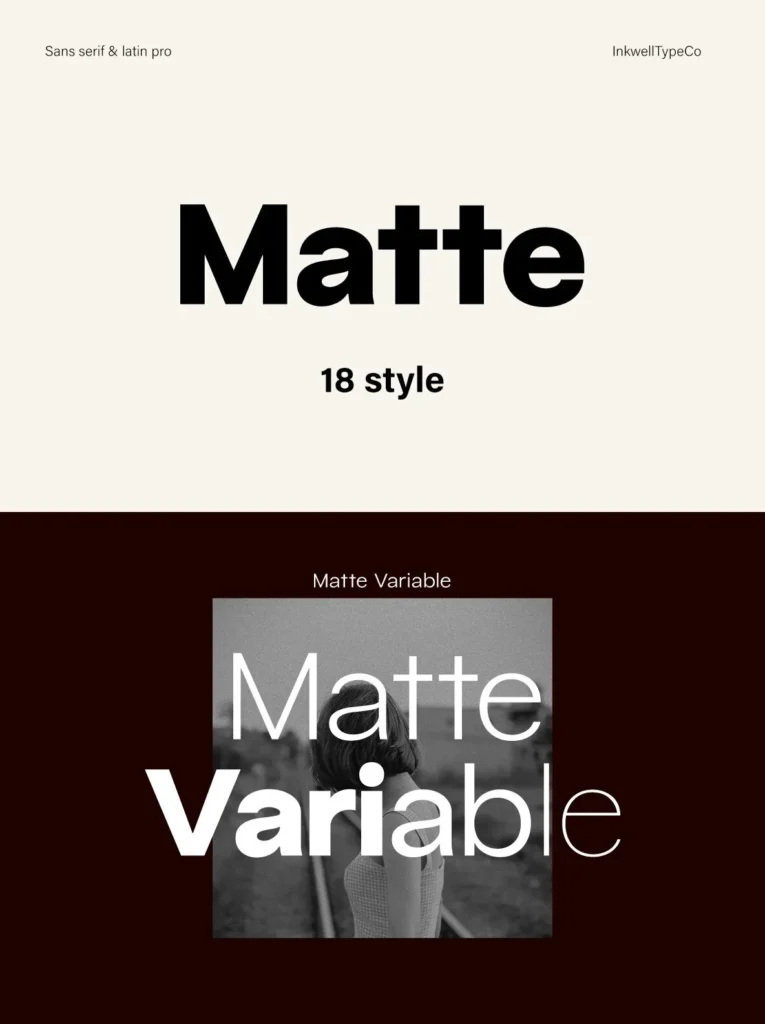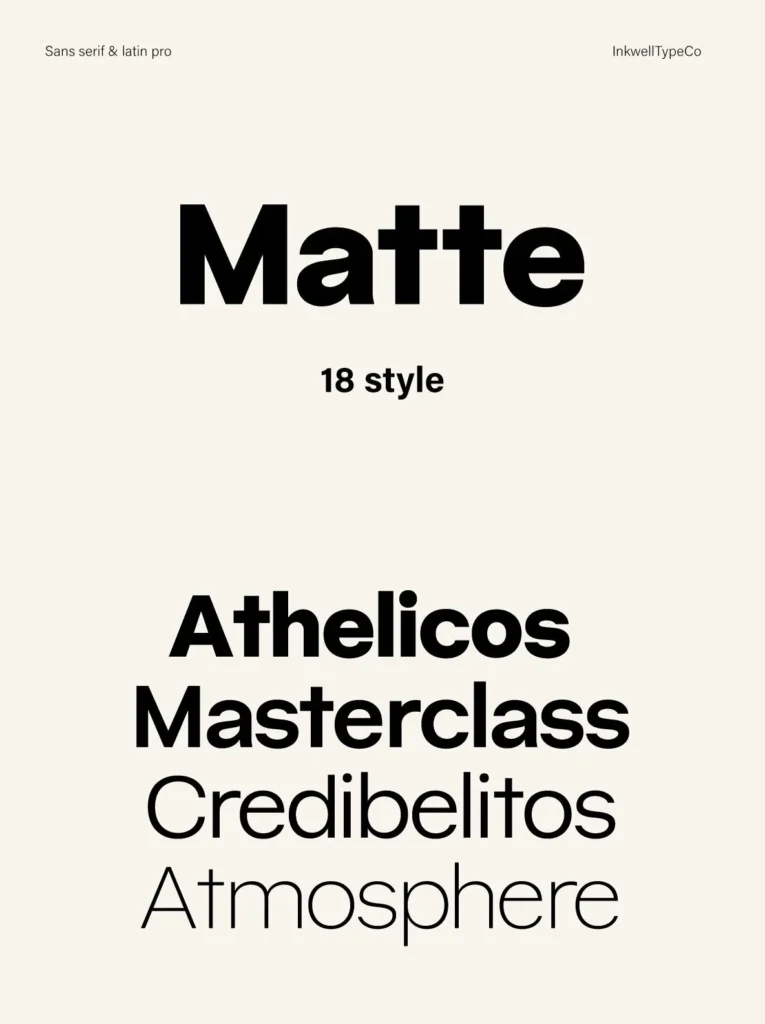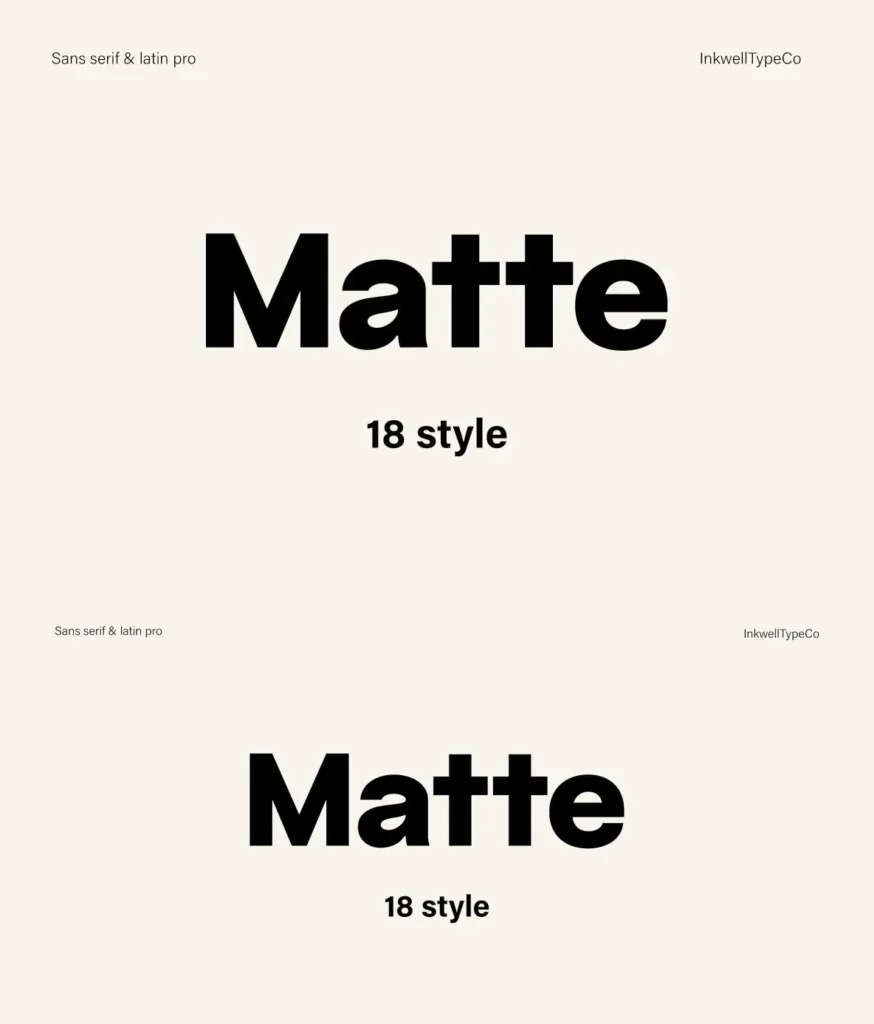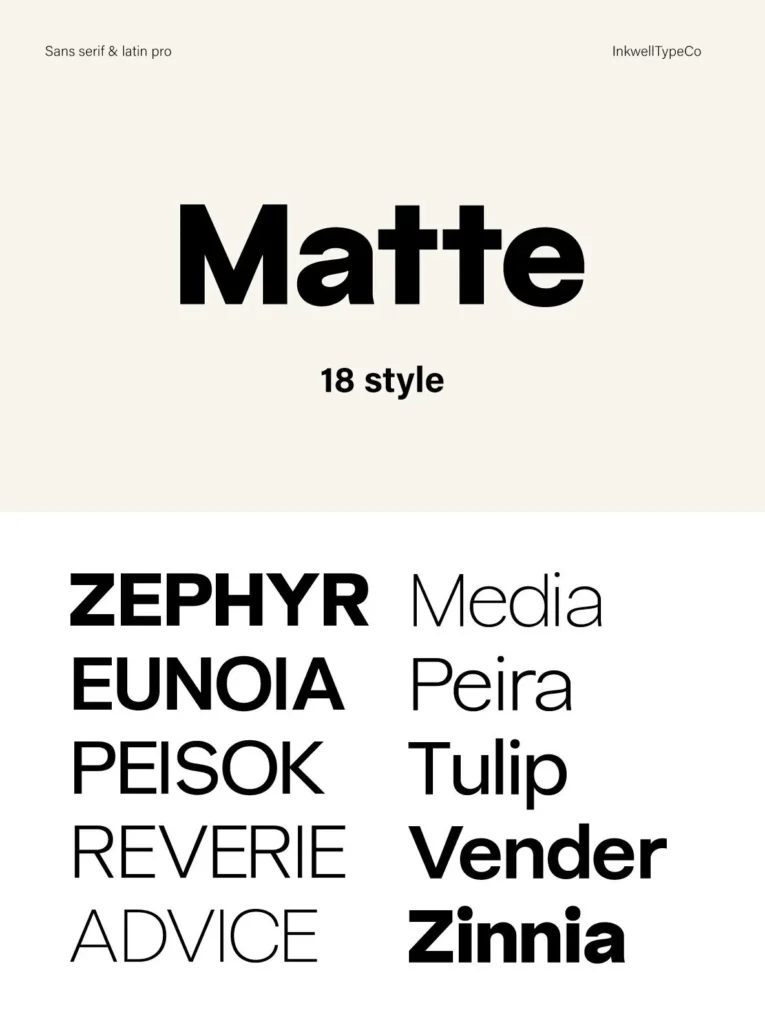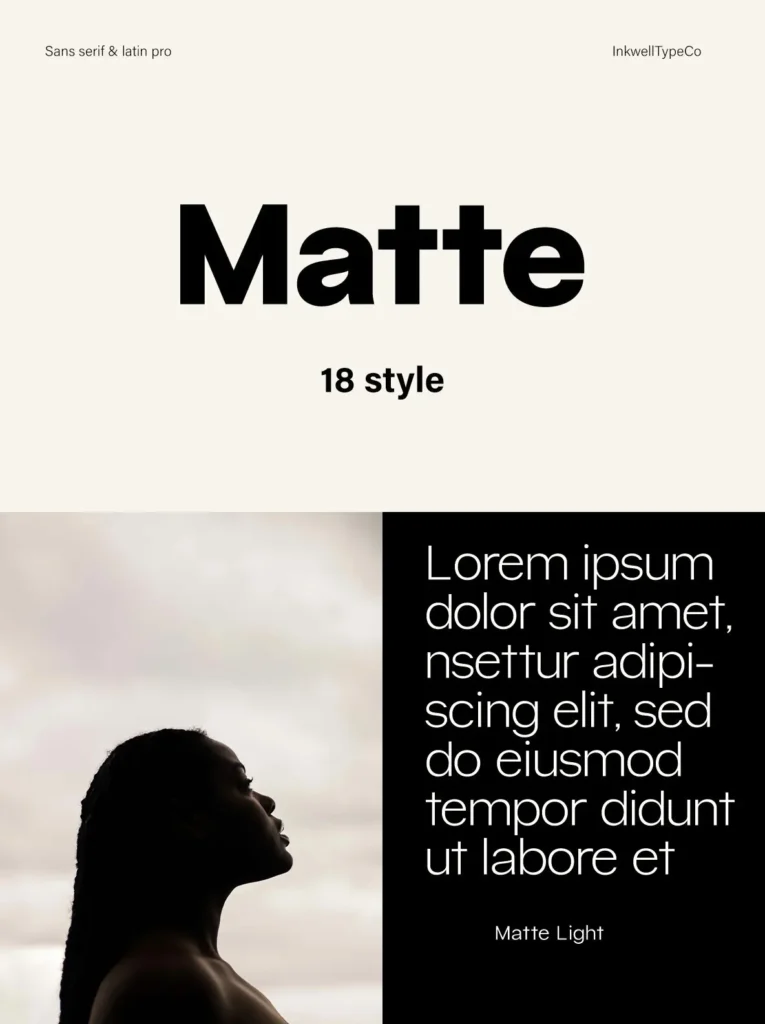
Matte: Bold clarity for modern layouts
A modern font family that blends boldness with clean design, Matte reads with clarity and precision. Its forms feel direct and confident, making it a strong fit for brand identities, editorial work, packaging, and digital design where readability still matters.
The family includes both uppercase and lowercase characters, so you can set everything from crisp headlines to longer text with a consistent voice. You also get standard numerals and punctuation, plus multilingual character support through accents for broader typographic coverage. PUA encoding provides access to additional glyphs when you need them. Designed by InkwellTypeCo., Matte brings a modern, bold touch to your next design.